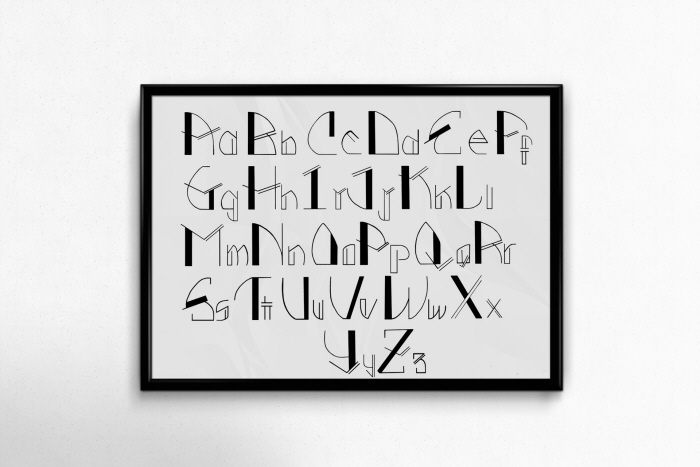
Human alphabets
Zoomed in view of letter X
Typeface designed for one of the poster i was creating for a play called "Accidental Rapture". The sharp edges on the typeface compliments the theme of the play.